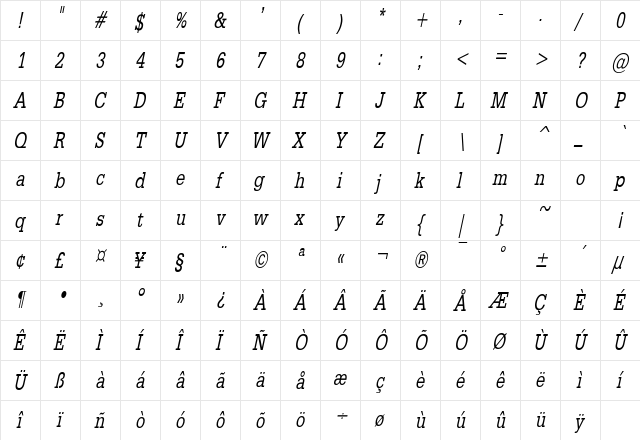
ClassicTypewriterCondensed Italic
Design Context for ClassicTypewriterCondensed Typeface
ClassicTypewriterCondensed has the warm character of retro typography — evoking diners, record sleeves, and the golden age of print advertising. The dynamic lean of this cut emphasises speed and emphasis in any layout.
Font Pairing: Combine ClassicTypewriterCondensed with a simple slab or neutral sans — period-accurate companions reinforce the vintage feel without competing for attention.
Pro Tip: Lean into ClassicTypewriterCondensed's period character by pairing it with aged paper textures, muted colour palettes, and vintage illustration styles.